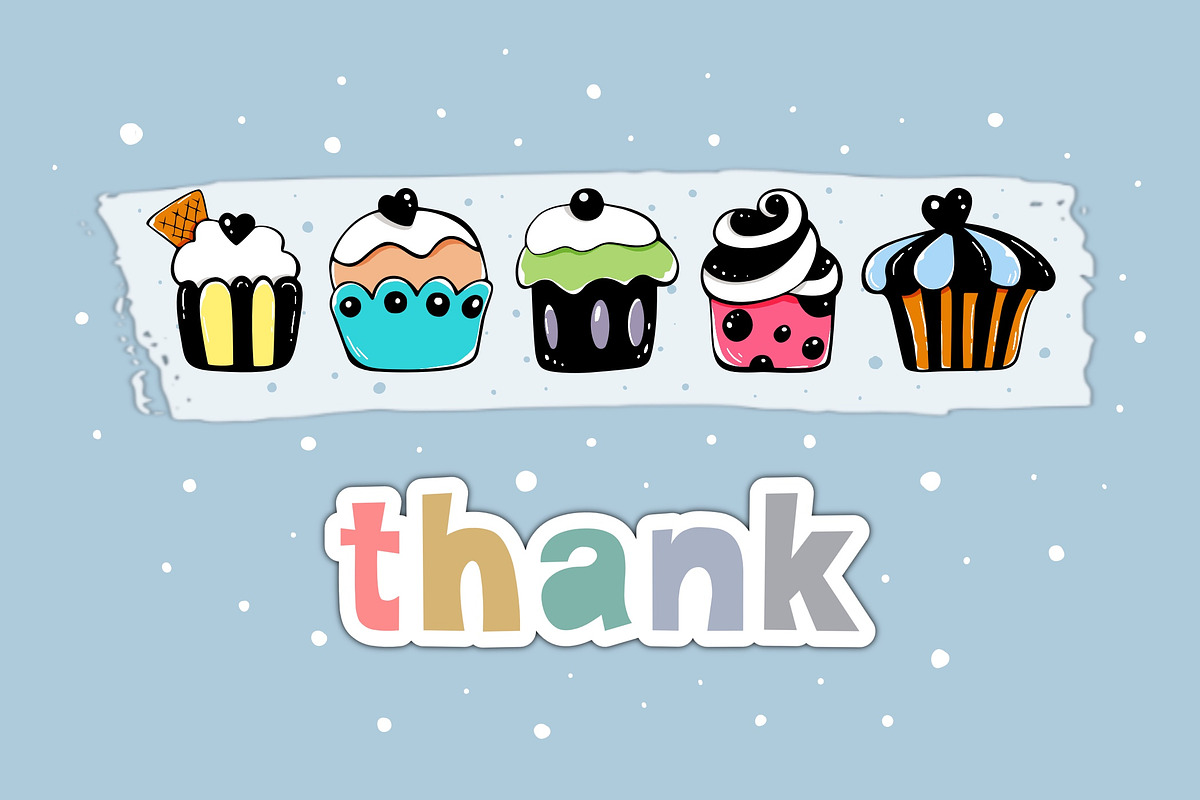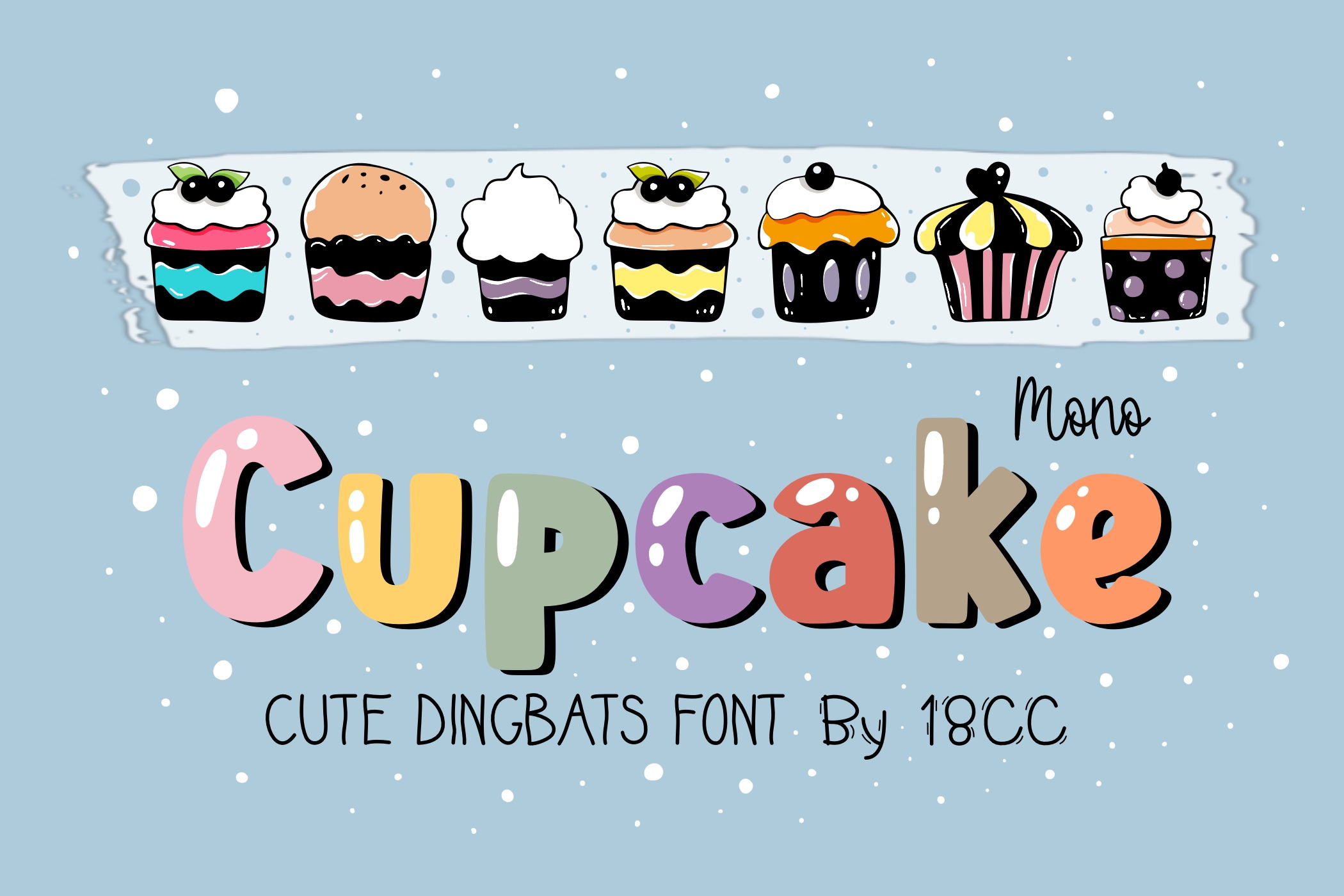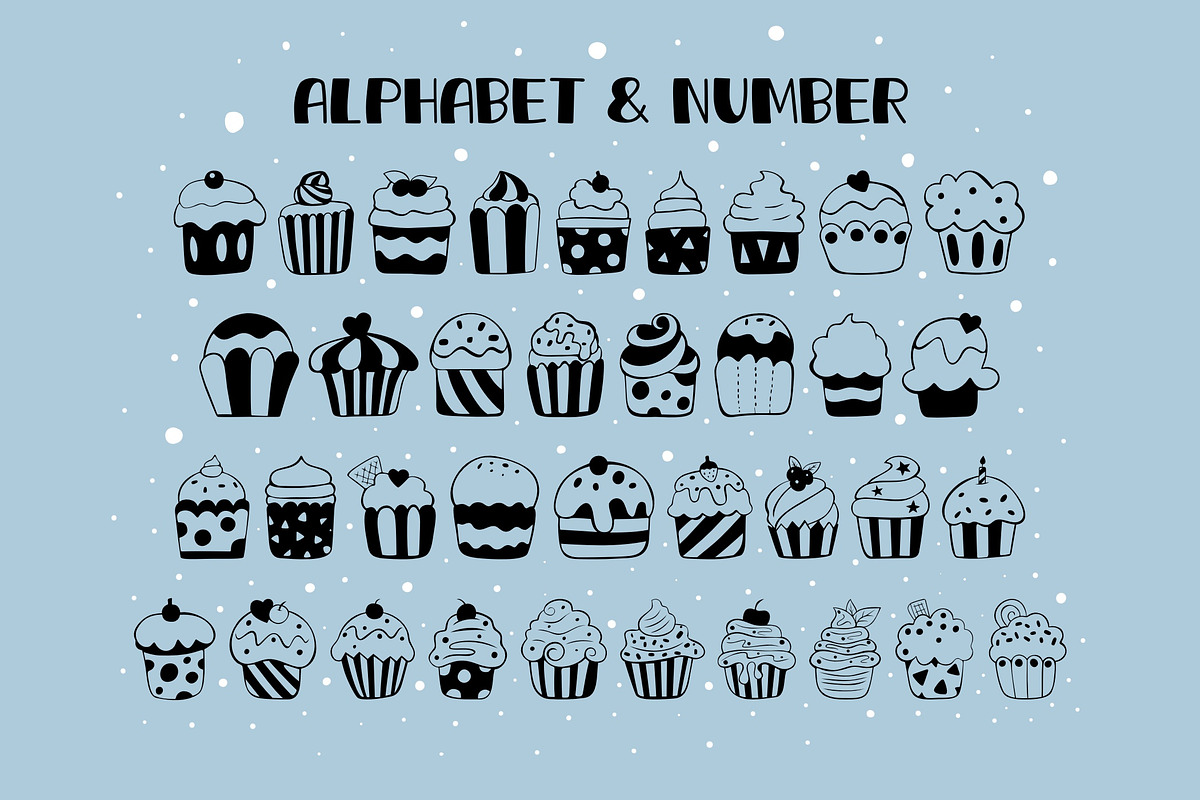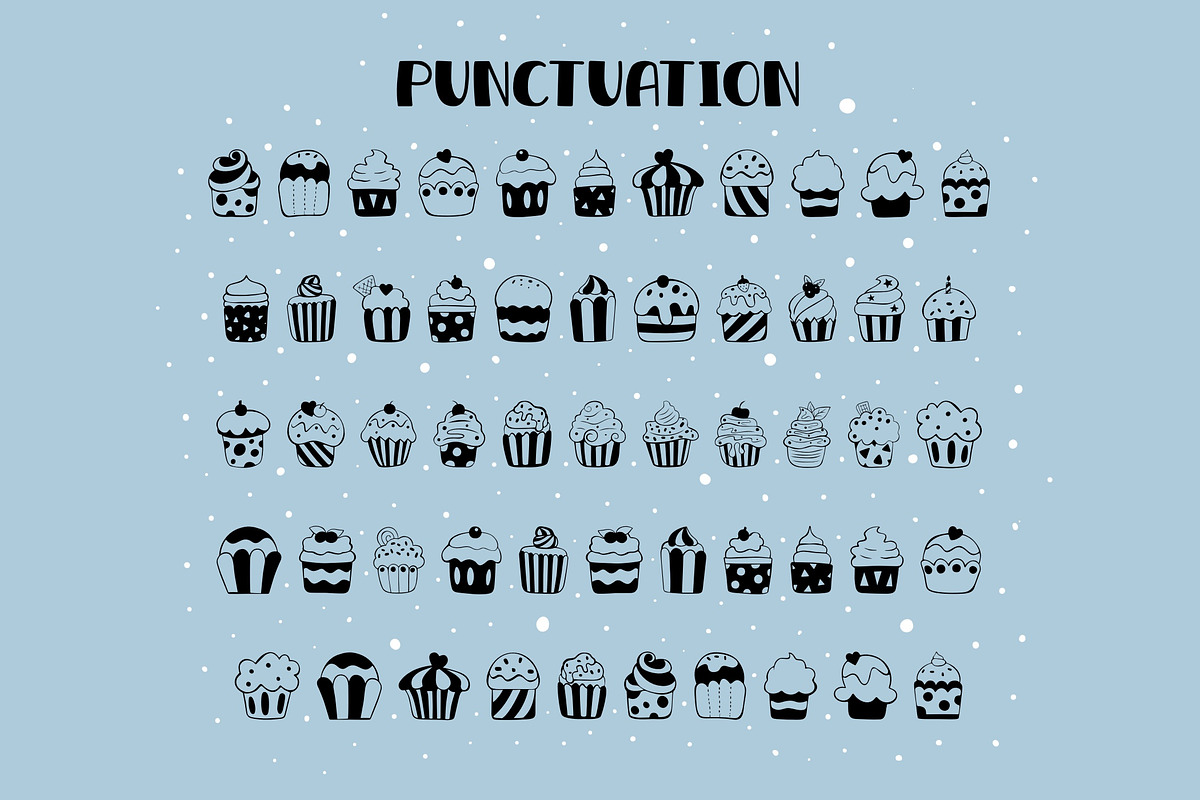
Mono Cupcake OTF Dingbats Font
Mono Cupcake is a funny dingbats font. This font is the perfect fit for all of your logos, wall art, signs, cards, art prints, t-shirts, coloring page, and much more!